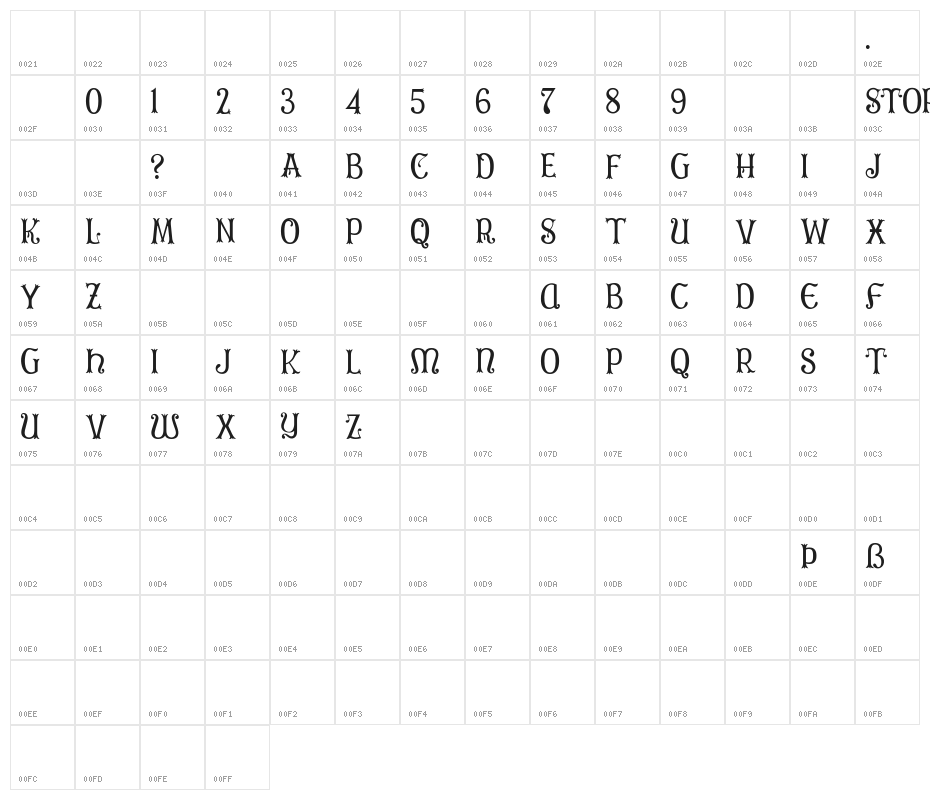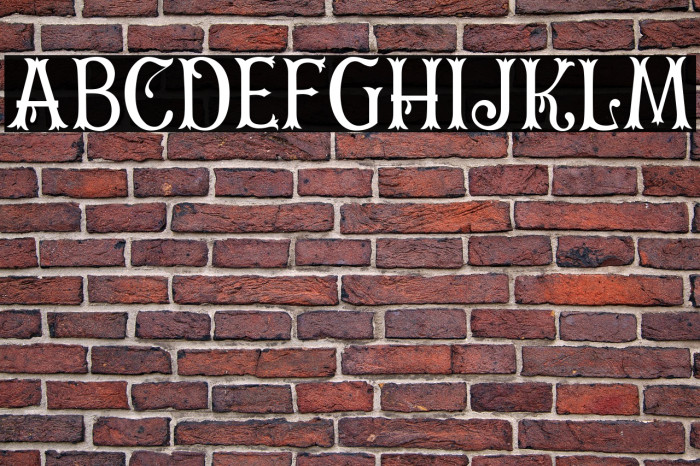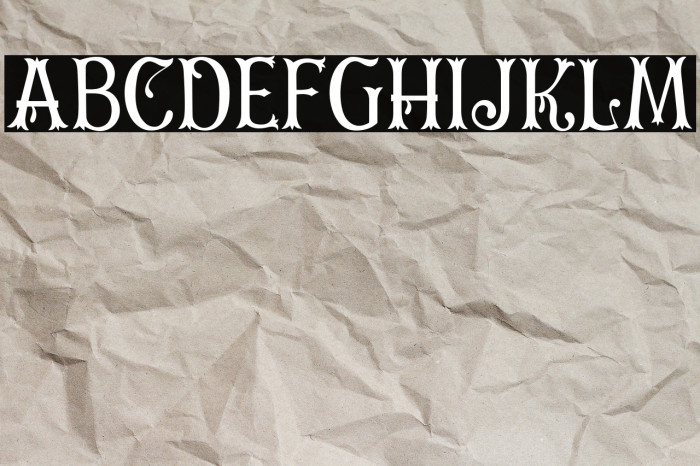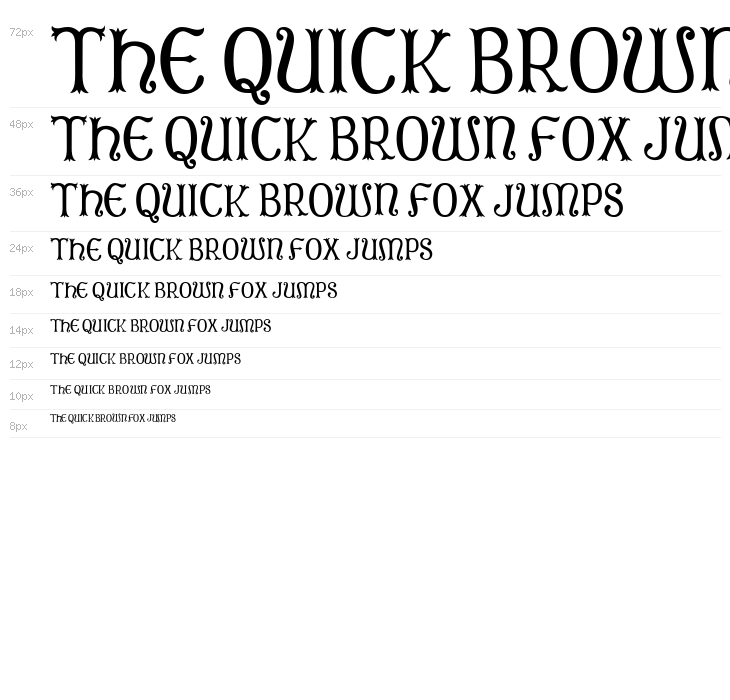
Storybook Ending Font
Storybook Ending Description
This font exudes a whimsical and enchanting aura, reminiscent of fairy tales and storybooks. The characters are adorned with elegant, flowing serifs that curl and twist, adding a touch of fantasy and magic. The uppercase letters are bold and commanding, while the lowercase letters maintain a playful and charming demeanor. The numbers are equally stylized, ensuring consistency throughout the typeface. This font is perfect for capturing the imagination and evoking a sense of wonder.
| Overall Style | Whimsical, Enchanting, Fantasy |
| Use Case | Headlines, Logos, Decorative text |
| Proposed Projects | Ideal for children's books, fantasy-themed projects, greeting cards, and whimsical branding. |